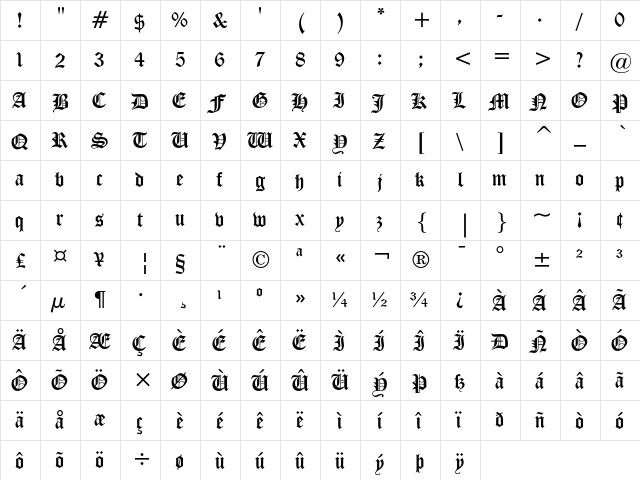
Cloister Black Regular
Design Context for Cloister Black Typeface
Cloister Black is a composed and adaptable typeface that performs quietly and consistently across a wide range of design contexts.